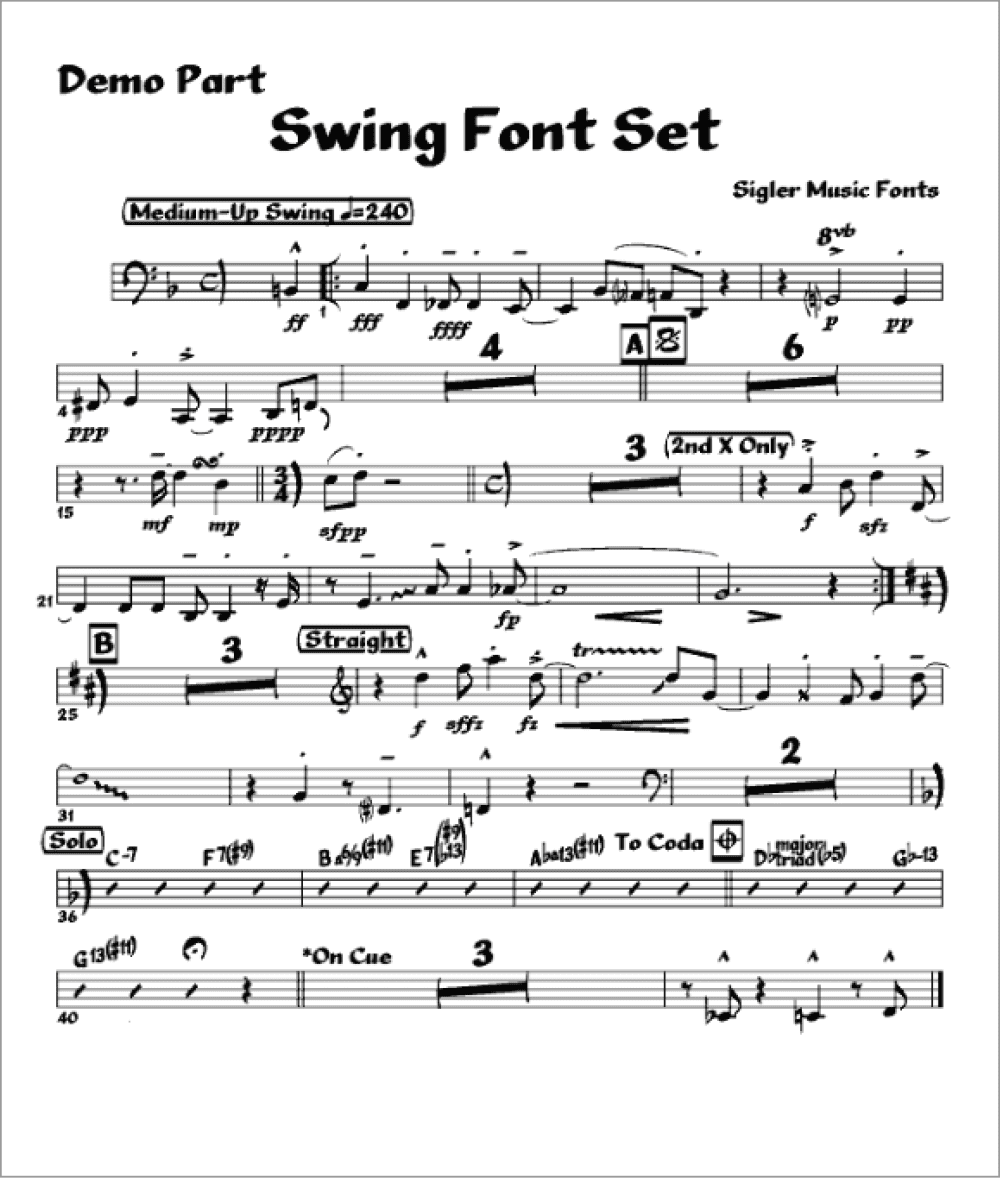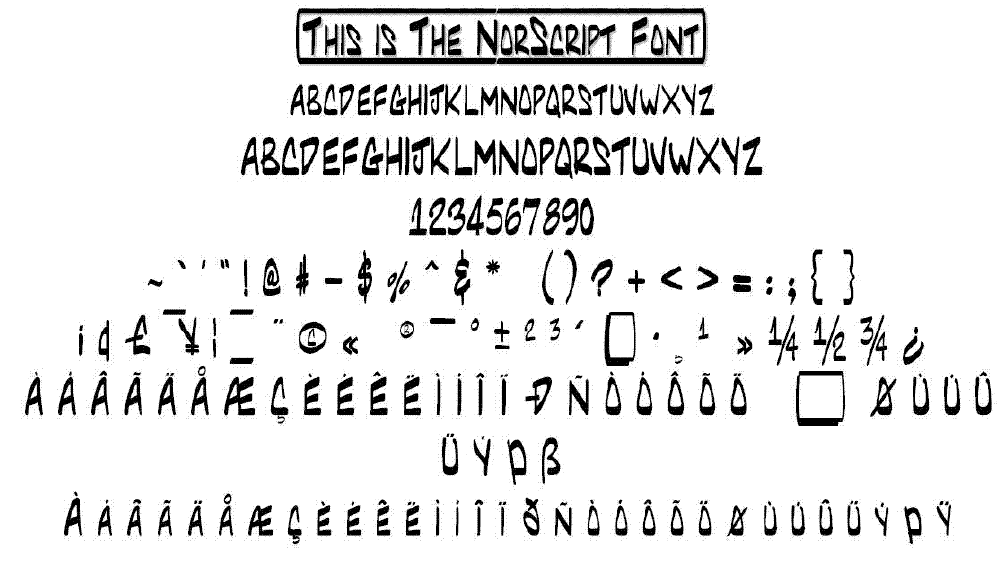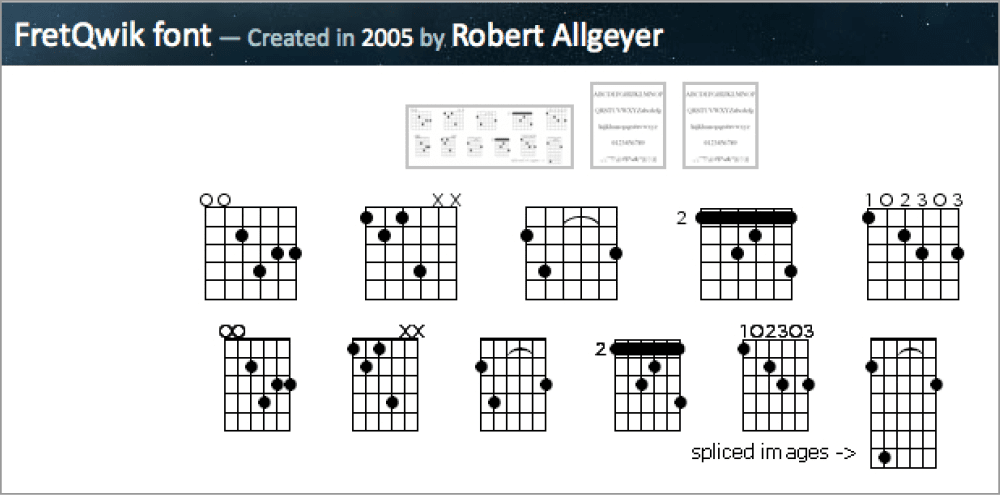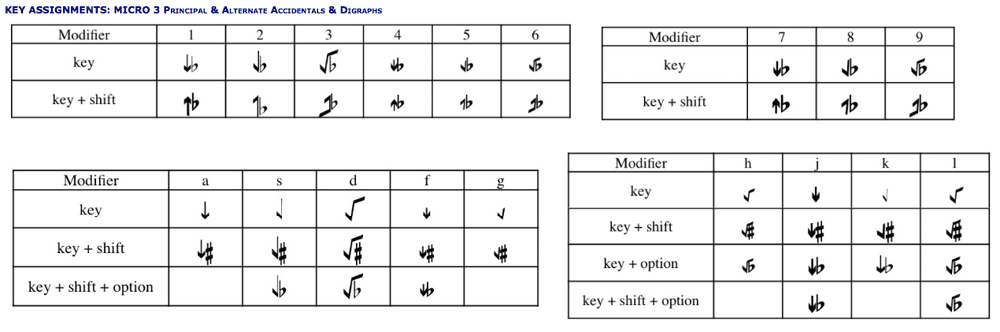
Fonts For Creating Musical Layouts
Adam Haus surveys the landscape of fonts for musical typesetting.
Constructing musical notation for layouts can be an arduous process, requiring plenty of planning and patience. Developers have come up with a number of dedicated visual and code-based applications for musical typesetting, but InDesign and Illustrator can also be used to produce a variety of musical layouts. Music-specific applications such as Finale and Sibelius include custom fonts. Some of those fonts are also usable in layout and word-processing programs, and there are other fonts designed just for use with applications like InDesign or Word. As you might expect, the character maps for some of these fonts are extensive, and essential to using these fonts, whether they offer fancy OpenType features or not. Some of these fonts do not come in OpenType versions, only TrueType or PostScript Type 1, but many of those are free, so that’s a trade-off you might want to consider.
Basic Notation Fonts
Sometimes you’ll only need to include some simple musical notation in a layout, especially if the project involves music education materials for beginning students. When that’s the case, consider these fonts.
- Staff lines and clefs to orient notes and indicate the passage of time
- Notes and rests to indicate pitch, duration, and rhythm
- Key and time signatures
- Dynamic markings for volume changes
- Accidentals (sharps and flats) to indicate pitch modifications
Noto Music
OpenType Freeware fonts.google.com Noto Music is a part of the free
Noto font collection, designed by Google to include fonts for nearly all of the world’s writing systems. This font contains symbols for modern, Byzantine, and Greek musical notations. With 579 total glyphs, it has plenty of options for standard musical symbols, accidentals, dynamics, and other common notation elements.
Noto Music, along with the other members of the Noto font family, were created to be visually consistent with each other. Its clean, well-defined glyphs make it suitable for digital and printed music applications.
MusiQwik and MusiSync
TrueType Freeware fontspace.com These fonts allow you to create notes and rhythms either with (MusiQwik) or without (MusiSync) staff lines. They are designed for “melodies” of single notes, but MusiQwik can be used to create multipart scores as long as each part consists of single notes, such as a standard SATB vocal score for four-part chorus (Figure 1).
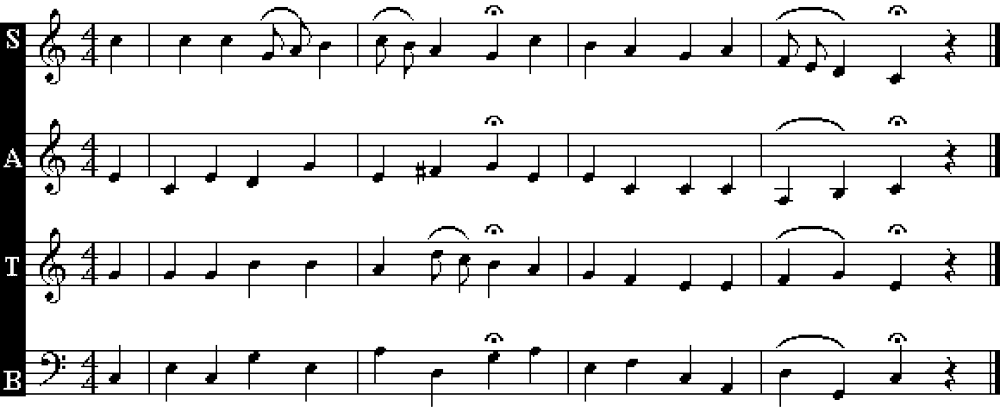
Figure 1: You can generate this 4-part vocal score using only MusiQwik.
MusicEd and MusicEd Fingerings Fonts
TrueType $25 single user; multi-user licenses available musicteachertools.com The MusicEd© font is designed for creating basic musicianship materials with either noteheads or Kodály stick notation, simple worksheets, transparencies, and exams (Figure 2).
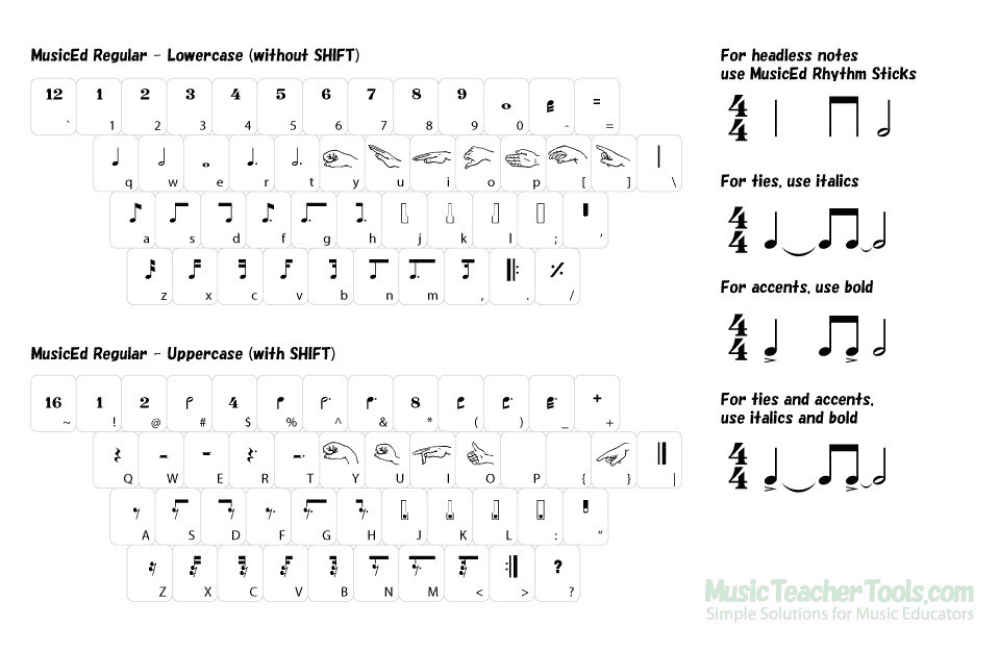
Figure 2: MusicEd font character map
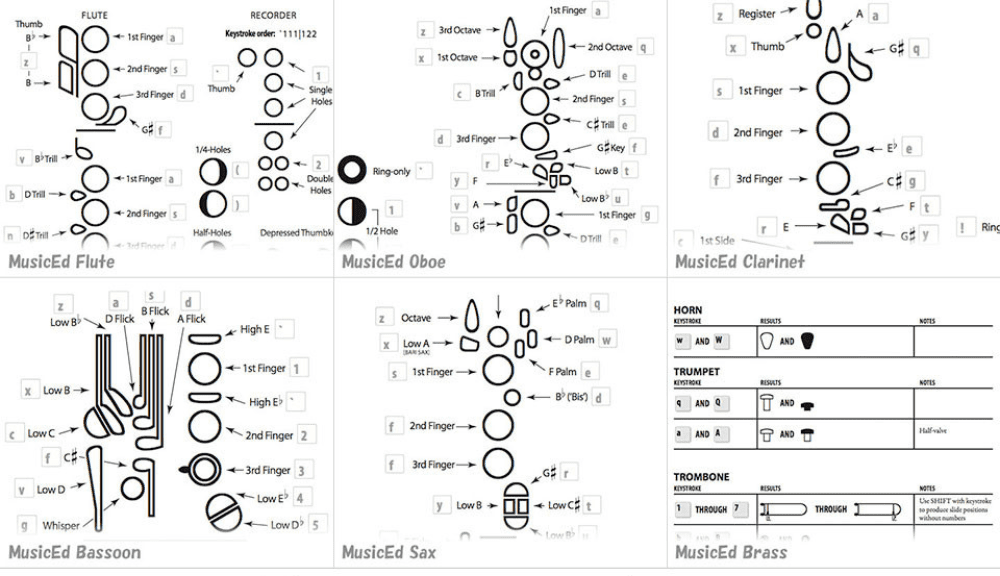
Figure 3: MusicEd fingering fonts character map
Engraved Notation Fonts
If you need charts or samples with the look of high-quality plate printing, resembling traditionally typeset classical music scores, engraved notation fonts are your best bet. Most of them use advanced OpenType features to provide complex notations.
MusicPro
OpenType Single license: $39.95 p22.com MusicPro takes full advantage of OpenType features and contextual substitutions to produce a wide range of symbols and notations for Western music. Using stylistic sets, titling alternates, contextual alternates, and discretionary ligatures, you can add chords, contextual accidentals (sharps and flats), contextual key signatures, and time signatures to generate single- or double-staff musical notation (Figure 4).
Figure 4: Essential MusicPro features, excerpted from the included guide.
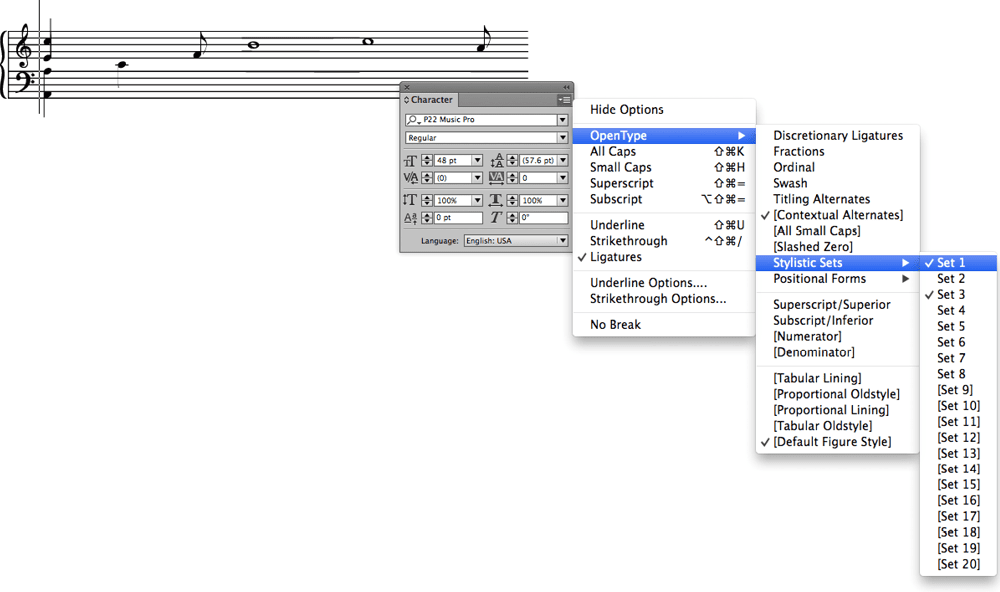
Figure 5: Activating a stylistic set to generate different symbols and notation. You’ll need to turn each off before activating a different set.
Sonata (Adobe)
OpenType $29 for 5-seat license fontspring.com This font contains any character you could need for standard musical notation (Figure 6). As part of the Adobe font family, it’s been around since 1985 and has seen a lot of beneficial use. More than a dingbat font, it uses OpenType features to let you create complex musical notation.
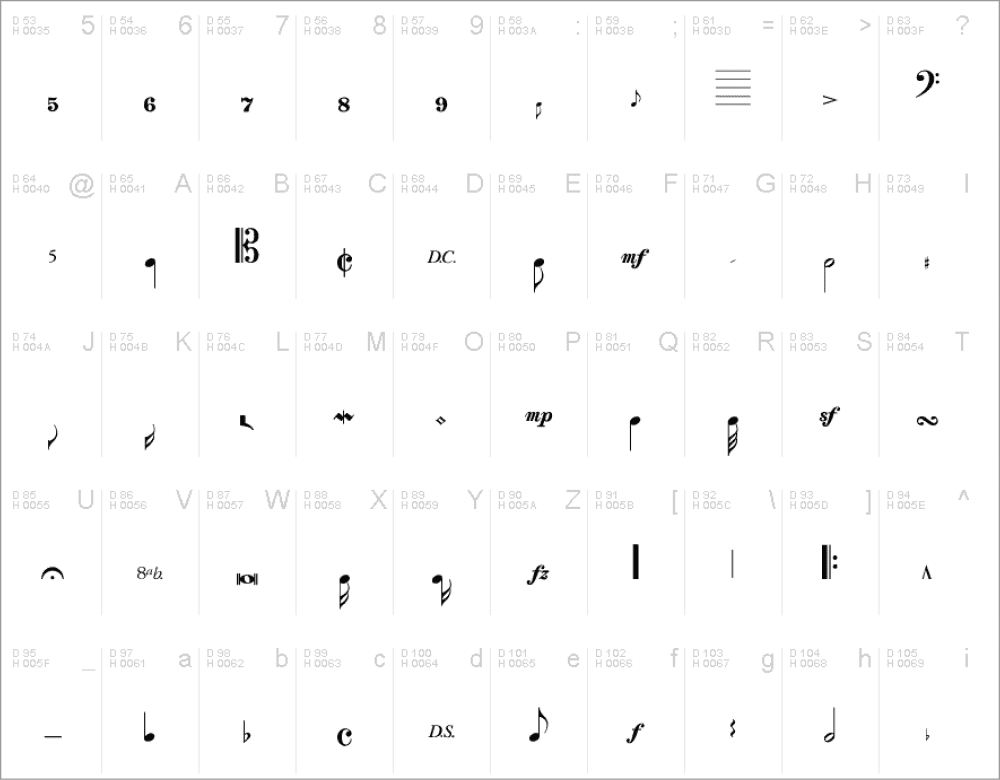
Figure 6: A small sample of the Sonata character map
Handwritten Fonts
Many professional musicians are familiar with handwritten scores/arrangements, which look more personalized than engraved scores. This is the look of the original jazz Real Books, which were transcribed and handwritten by students in the 1970s, and of many arrangements for musical theater shows.
Jazz and Swing Fonts
TrueType $19.95–$49.95 jazzfont.com Here are two full-featured font sets that include styles for notation, chord names, percussion notation, and text. They can be used with notation software such as Finale and Sibelius, as well as with InDesign. Jazz (Figure 7) has a more casual handwritten look, while Swing (Figure 8) resembles a more formal score, with a calligraphic feel. Both fonts provide a more personal look to scores and lead sheets than engraved typesets, while offering a complete range of standard notation and score markings.